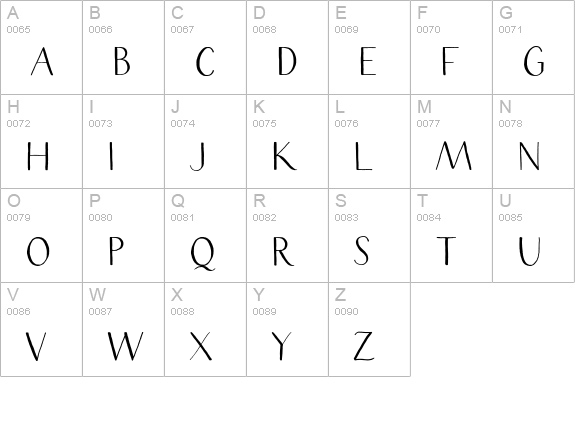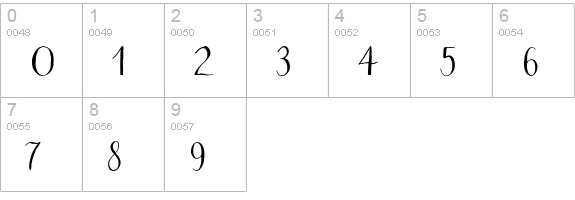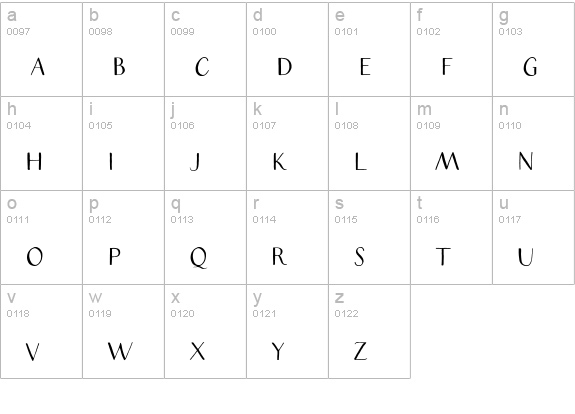
Introducing Salt & Spices Pro SC font - a harmonious blend of elegance and versatility, exuding a touch of sophistication with its graceful curves and refined strokes. This timeless font is perfect for adding a touch of class to your design projects, whether it be for branding, invitations, signage, or packaging. What sets Salt & Spices Pro SC font apart is its exquisite attention to detail, making every letter a work of art in itself. The delicate serifs and unique flourishes add a sense of charm and character to each character, creating a truly captivating visual experience. And the best part? Salt & Spices Pro SC font is available for free download at FontsMarket.com, allowing you to effortlessly elevate your designs without breaking the bank. Don't miss out on the opportunity to add this exquisite font to your collection and bring your creative vision to life with style and sophistication.